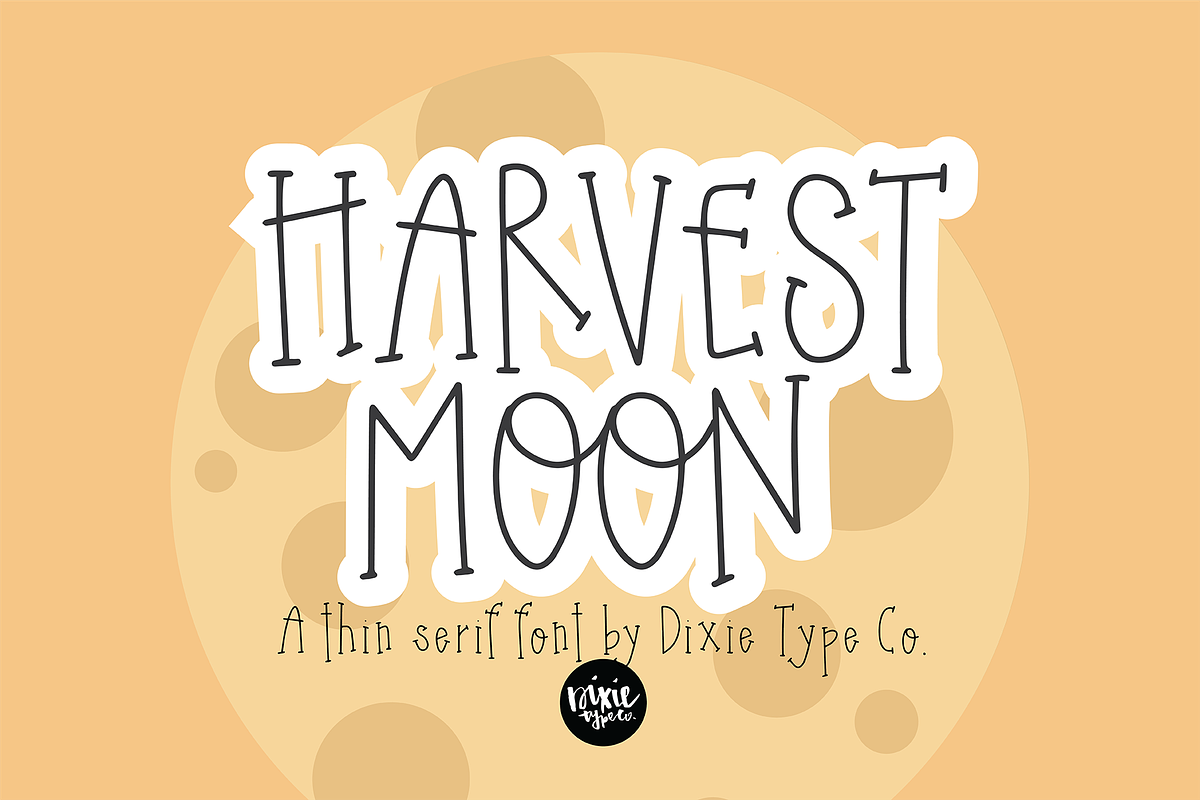
HARVEST MOON - A Thin Serif Font Free Download is an elegant and refined serif typeface with thin, delicate strokes and a modern aesthetic. Its minimalistic design makes it perfect for high-end branding, editorial layouts, fashion, luxury product packaging, and modern logos. The thin serifs add sophistication and readability, while the contemporary structure ensures versatility across various design projects.
Whether you're designing for a premium brand, creating editorial spreads, or working on a minimalist website, HARVEST MOON offers a stylish, clean look that elevates your designs.